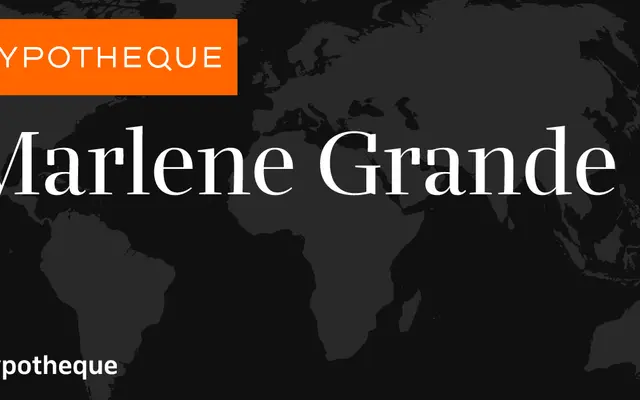
Marlene Grande specimen from Typotheque
A humanist sans from Typotheque offered in three subfamilies including a stencil variant, across four weights with italics.
The family splits into Marlene Grande, Marlene and Marlene Stencil, each running Light through Bold. The stencil cut drops the italics but retains all four weights, making it usable across editorial, wayfinding and display contexts. Named weights are complemented by city-named specimen cuts suggesting broad international application.
Marlene Grande reads as a humanist sans with a broad, open character, available in standard and stencil variants suggesting editorial and signage-oriented design thinking.